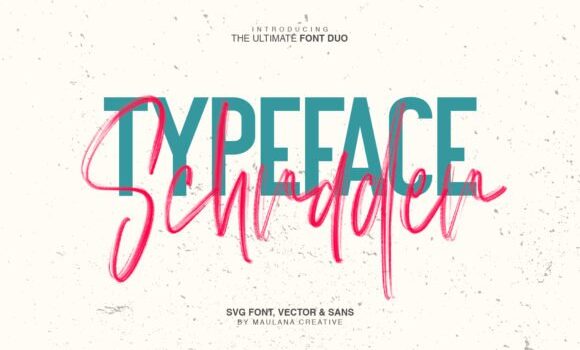
schrader
Schrader Font – Free Download Introduction to Schrader Font Schrader is a modern font family featuring authentic brush strokes. 📸 Preview Gallery 6 images 📌 Product Name Schrader Font 👤 Author Maulana Creative 📂 Category Explore ⬇️ Download Schrader Font